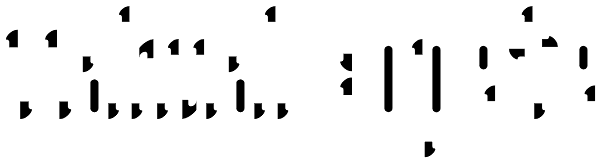
Nahual Claw
From the depths of an antique civilization is born "Nahual" inspired by my ancestral Prehispanic Culture, with traits that allows it to mimetize itself, hours of painstaking dirty work with the only goal to show all it knows we want to see, to...
Nahual Claw